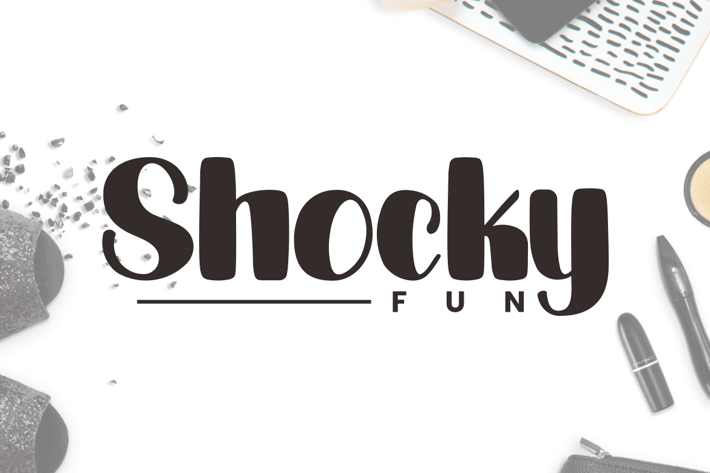
Shocky Fun - Handwritten Font
Introducing Shocky Fun, a simple handwritten font.
So perfect for you who needs a typeface for logo designs, magazine, social media, brochure, and many more.